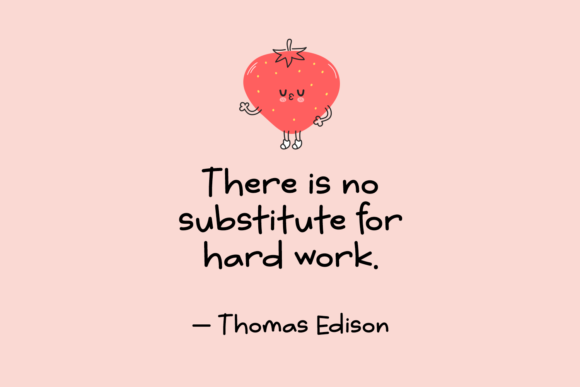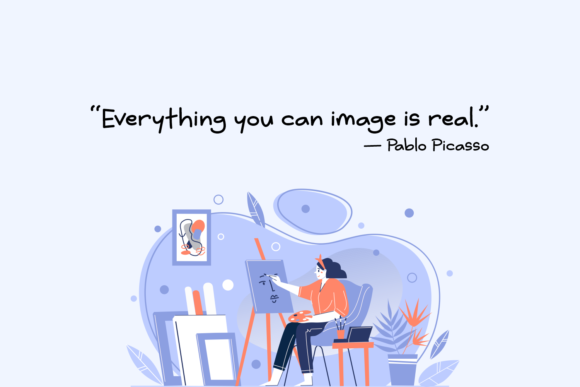
Strawberry Chocolate Font
Strawberry Chocolate Font is a free, unique, and cool font. This font is FREE to Download and suitable for designs such as t-shirts, sportswear, posters, logos, advertisements, clothing, and more.
Strawberry Chocolate Font is a free, unique, and cool font. This font is FREE to Download and suitable for designs such as t-shirts, sportswear, posters, logos, advertisements, clothing, and more. Whatever the topic, this font will be a great asset to your font collection, as it has the potential to enhance any creation.